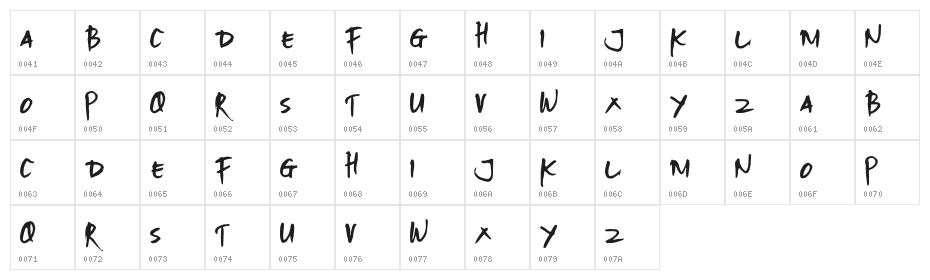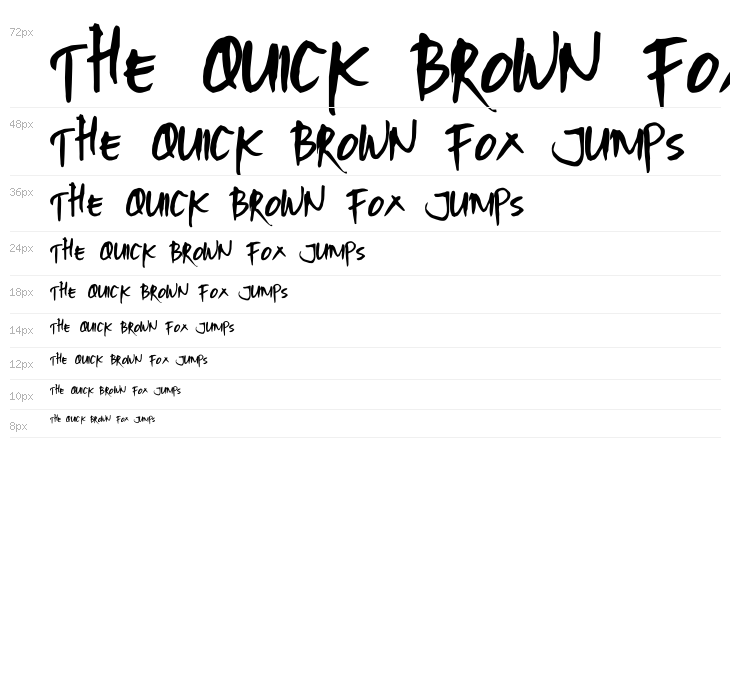
Gilaka Font
Gilaka Description
This font features a bold, expressive style with a handwritten appearance. The strokes are thick and dynamic, giving it a lively and energetic feel. Each letter has a unique, slightly irregular shape, contributing to its informal and personal touch. The uppercase and lowercase letters maintain a consistent style, with a playful yet legible form. The overall design is reminiscent of brush strokes, adding an artistic flair. This font is ideal for projects that require a personal, creative touch, such as invitations, posters, or branding materials. Its bold presence ensures it stands out, making it suitable for headlines and attention-grabbing text.
| Proposed Projects | Ideal for invitations, posters, branding, and any creative projects needing a personal touch. |